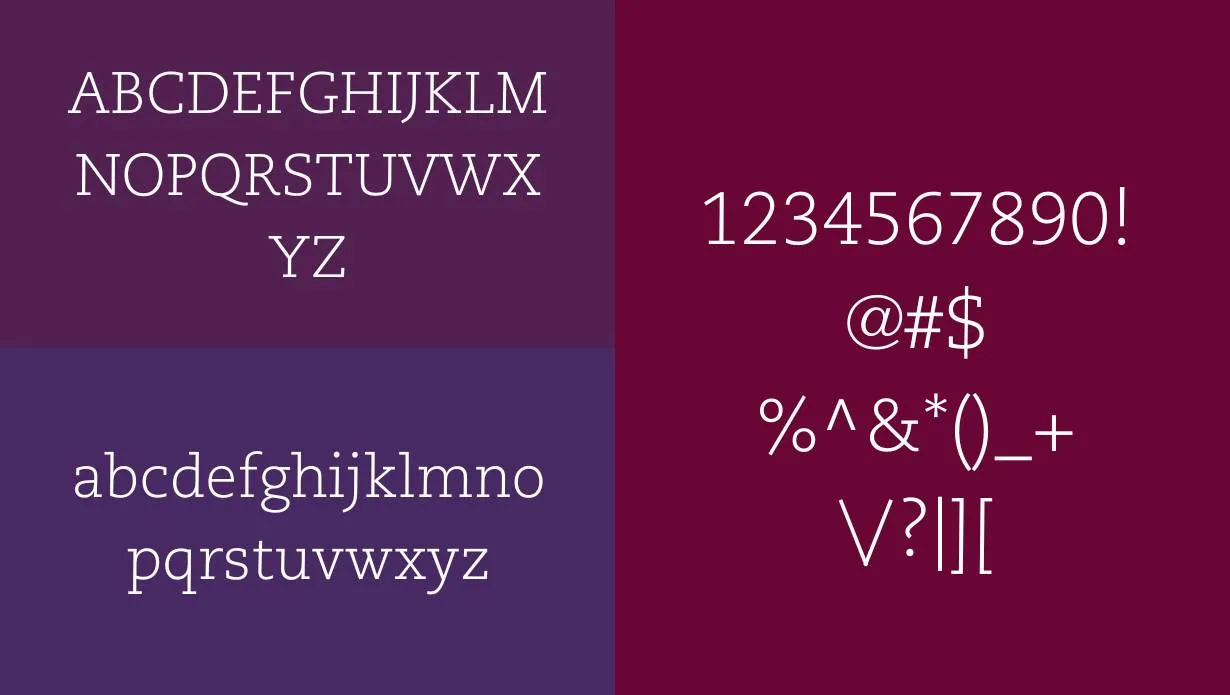
Caecilia Font is a classic and elegant typeface often chosen for editorial design, formal documents, and scholarly publications.
| Name | Caecilia Font |
| Designer | Peter Matthias Noordzij |
With its well-balanced letterforms and traditional style, it conveys a sense of sophistication and tradition, making it a preferred choice for professional and academic materials.